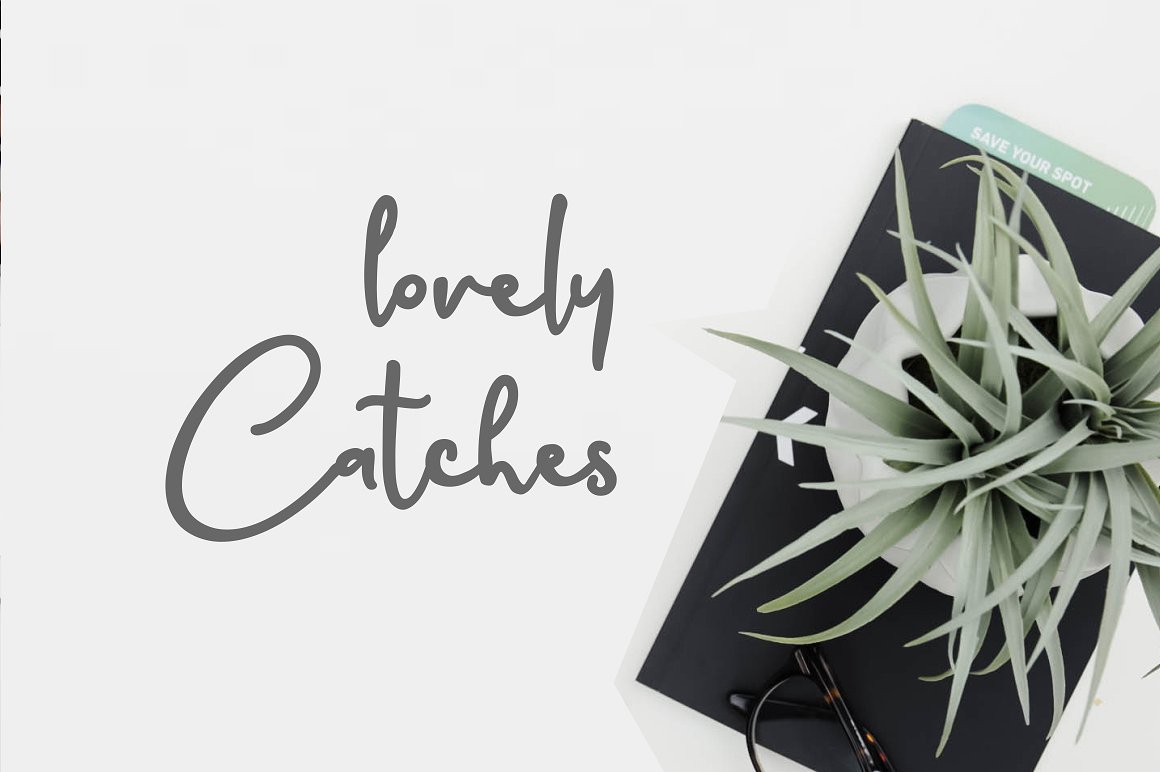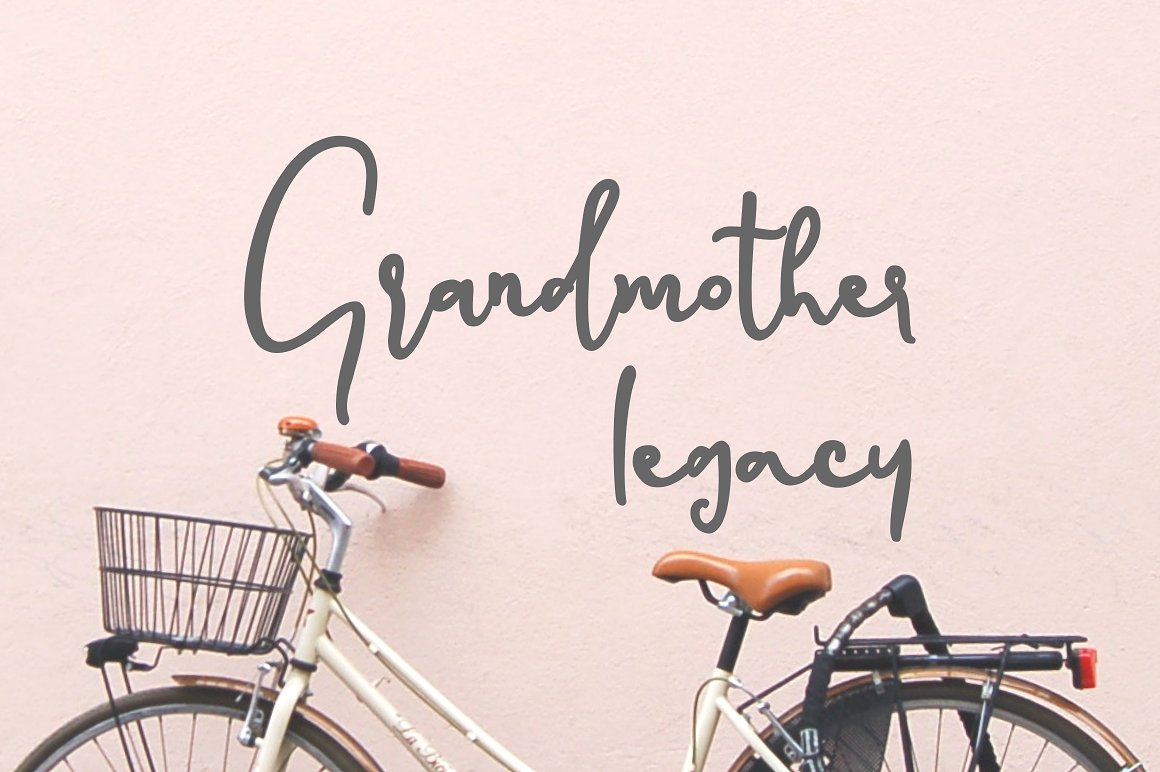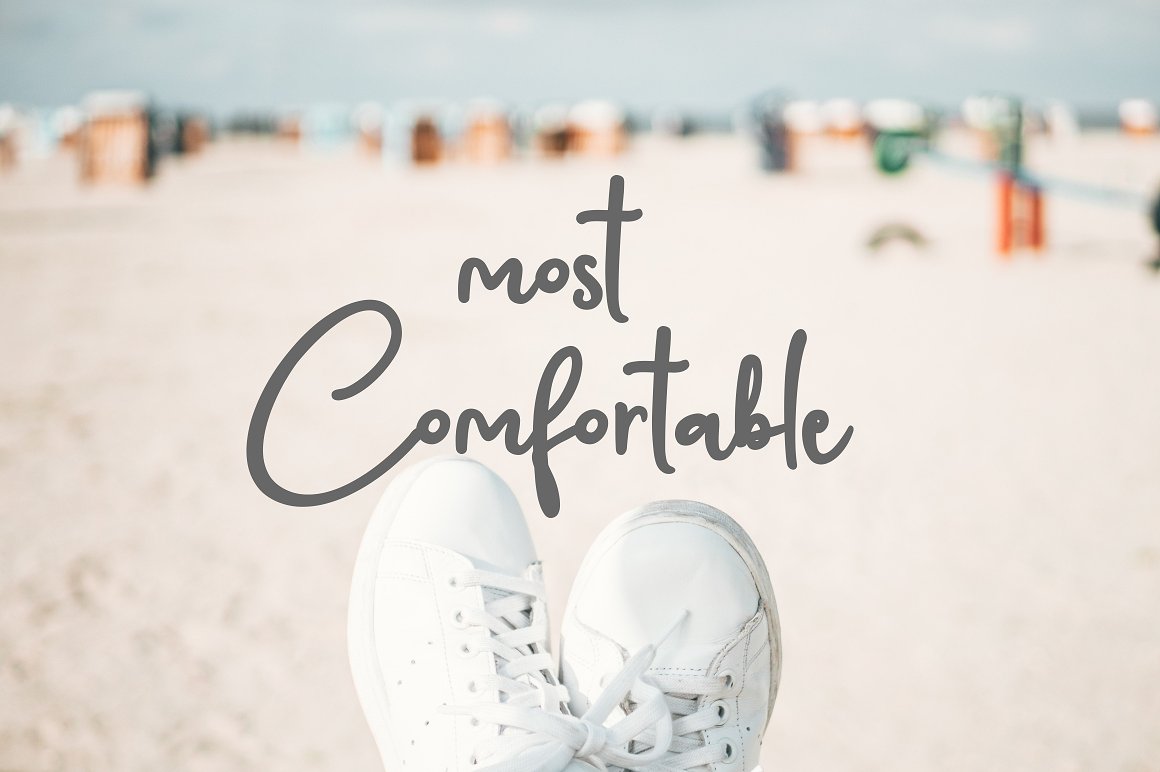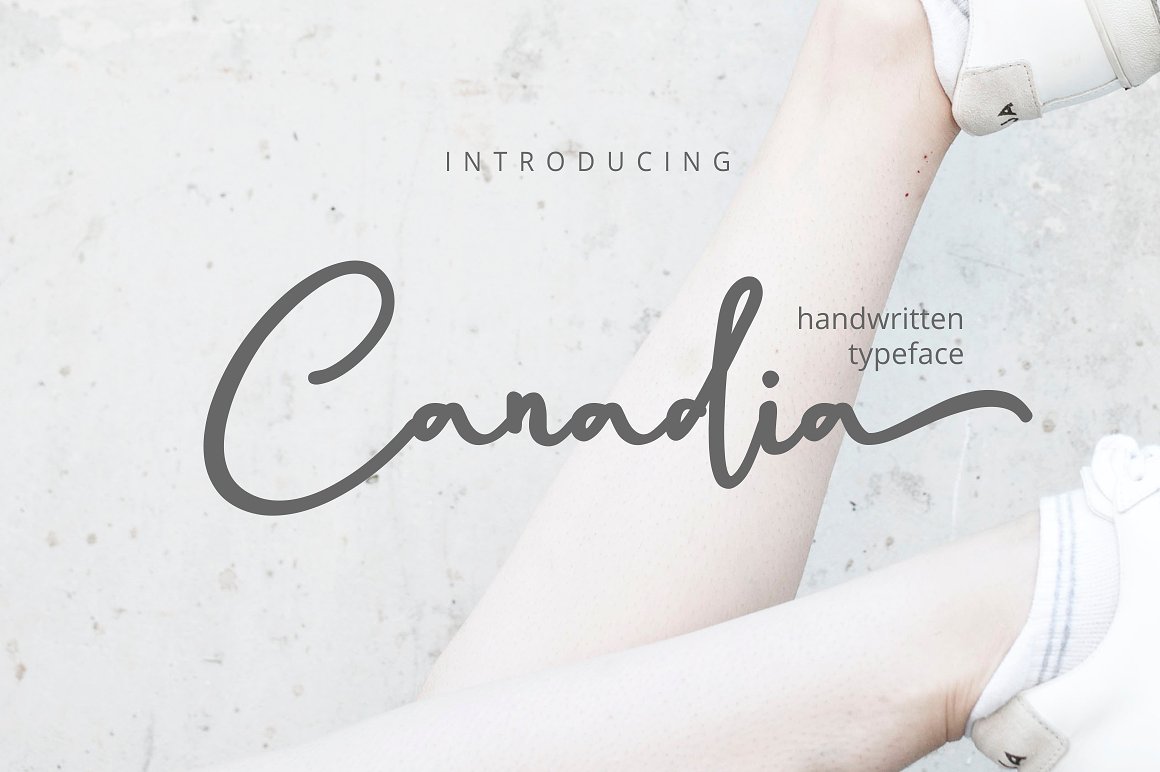
Canadia Script | Handwritten Font
Canadia Font – gives you possibility to build your text almost like handwriting with all the charming imperfections and variations that a real handwriting has. Canadia designed and shared by Bonjour Type. Canadia Script is a rocky baseline font that will give your design a fresh, modern, and will look beautiful on quotes, cards, and all your other beautiful projects. Can be used for various purposes, such as titles, signatures, logos, wedding invitations, t-shirts, letterheads, signboards, labels, news, posters, badges etc.